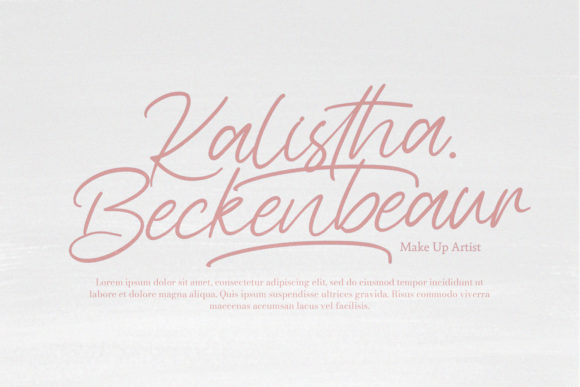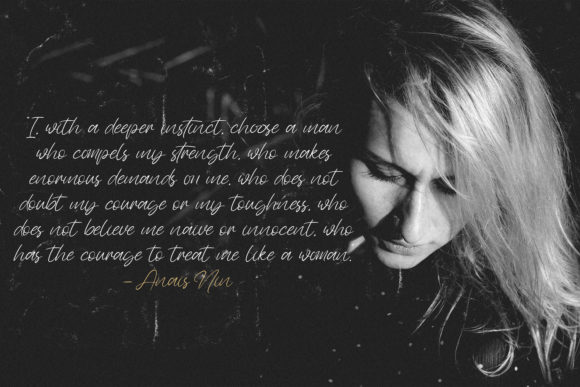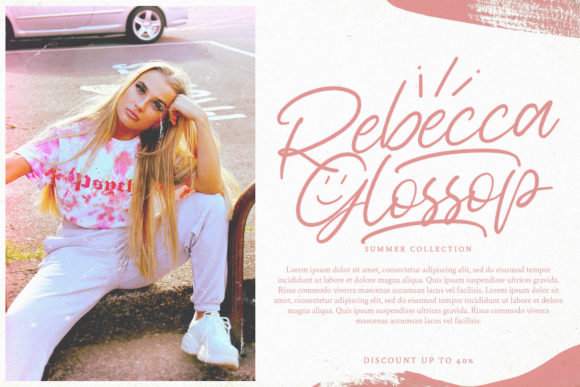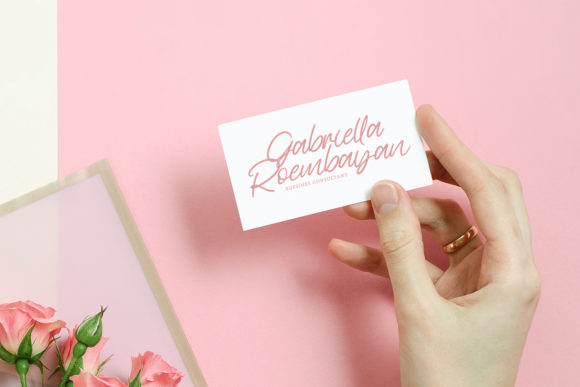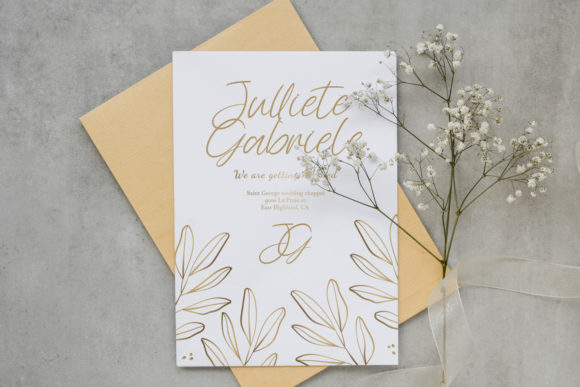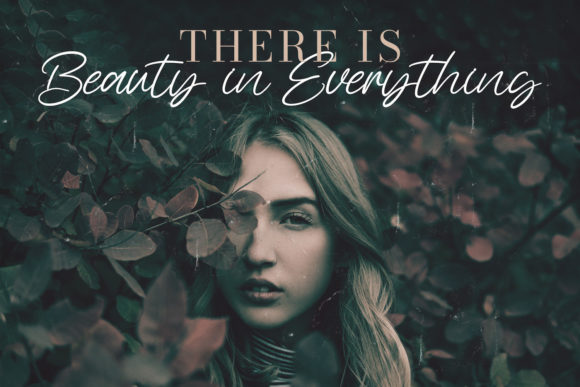
Introduction to Awejatty Font
Have you ever found yourself stuck in a design rut, scrolling through font options, searching for that perfect touch to elevate your creative project? For many designers, the struggle is real – until they stumble upon the Awejatty Font.
This chic, refined script font is more than just a pretty face; it’s a game-changer. With its stylish alternates and ligatures, the Awejatty Font is the ultimate design resource for anyone looking to add a touch of sophistication and elegance to their work. Whether you’re working on a high-end branding project or creating a beautiful digital product, this font is sure to impress.
Key Features of Awejatty Font
- Unique, hand-crafted design perfect for adding a touch of elegance to your design projects
Honest Review: Awejatty Font
I recently stumbled upon the Awejatty Font, and I must say it’s a great addition to any design enthusiast’s toolbox. As a designer, I’m always on the lookout for high-quality fonts to enhance my creative projects.
Here are some things that work well with the Awejatty Font:✨
- Unique and stylish design
- Easy to customize and use
However, there are a few limitations to keep in mind:⚠️
- Only available in a limited number of weights
- May not be suitable for body text due to its decorative nature
Overall, I’m impressed with the Awejatty Font and would recommend it to anyone looking for a stylish and versatile design resource. Its high quality and transparent background make it a great choice for creative projects, and its free download option is a definite bonus.
Common Use Cases for Awejatty Font
The Awejatty Font is perfect for any creative project, including logos, social media posts, presentations, and documents. Its unique design and transparent background make it a valuable design resource for designers and non-designers alike.
Alternatives to Awejatty Font